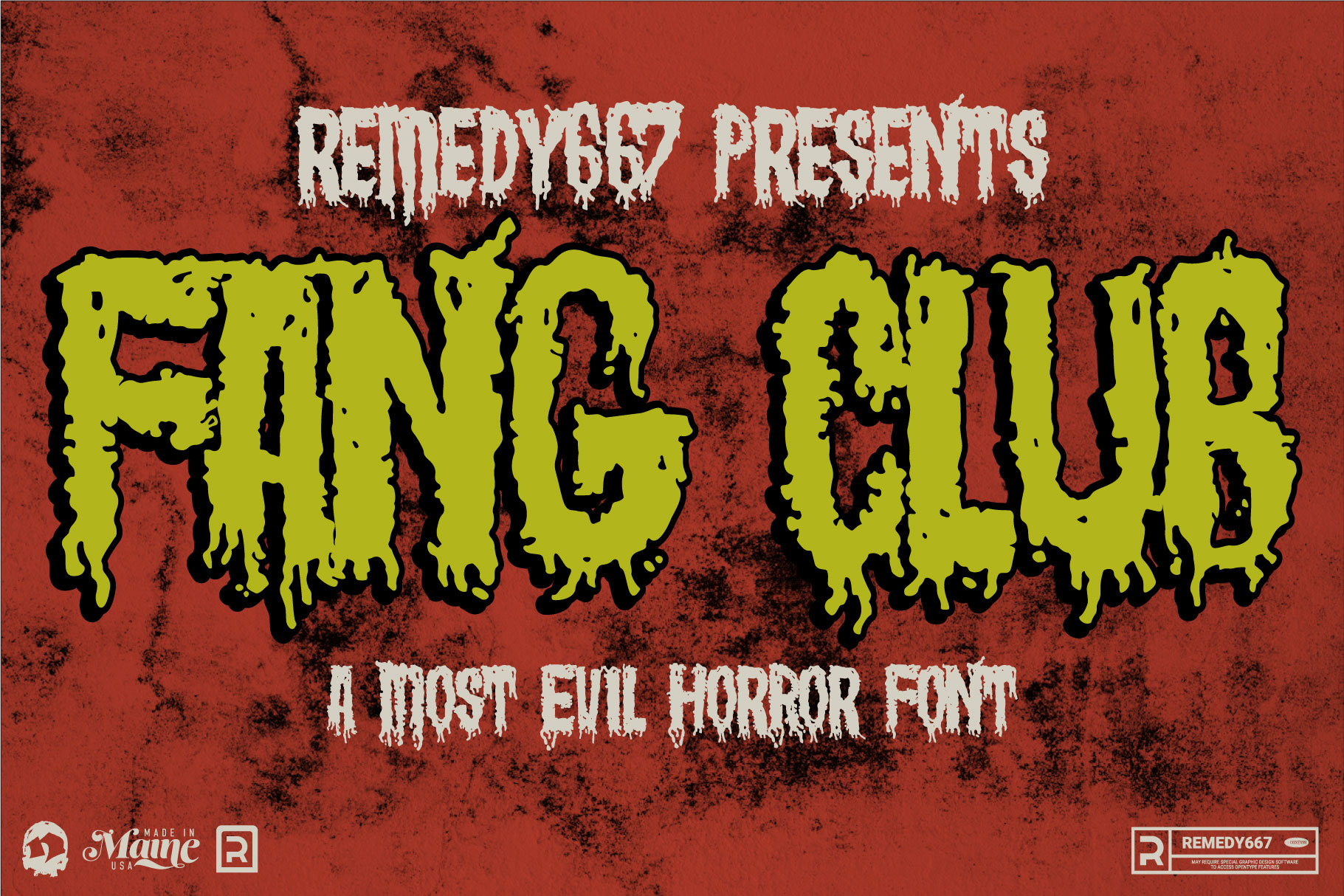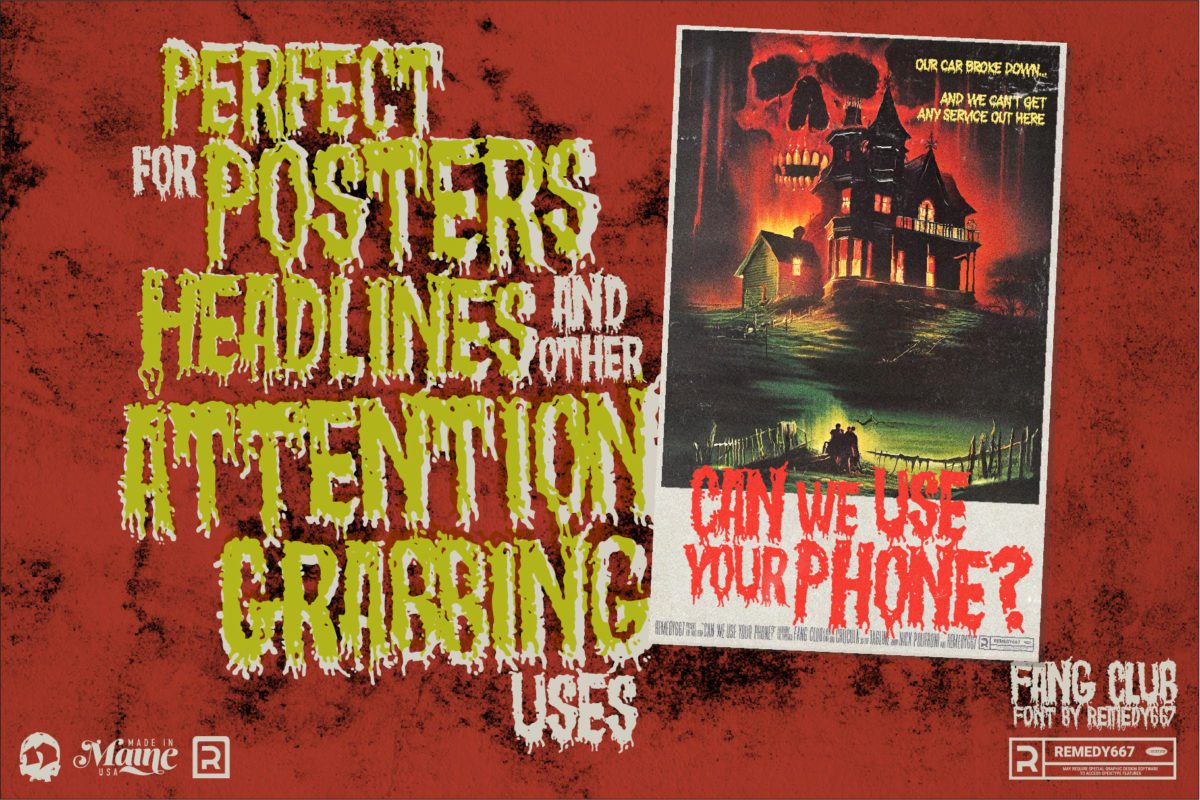
Fang Club
Unleash your inner darkness with Fang Club, our most sinister creation yet. Inspired by classic horror films, this font will send shivers down your spine. Its drippy and organic design adds an eerie touch to any text, while the Doubles Elimination feature gives your letters a hauntingly unique appearance.
Ideal for titles and subheadings, Fang Club is perfect for adding a spine-chilling vibe to your designs. Fang Club is the perfect tool to bring your dark visions to life.
- Doubles Elimination gives you a more natural look.
- Bold, eye-catching design to grab the attention of customers.